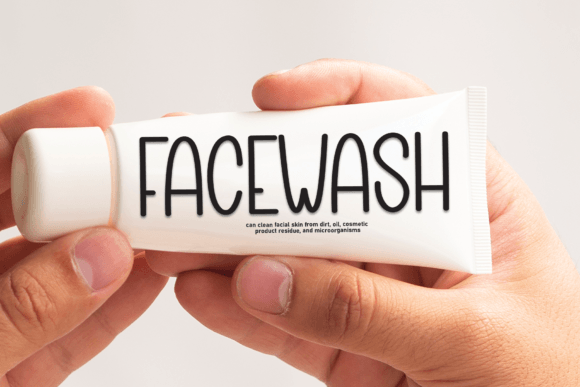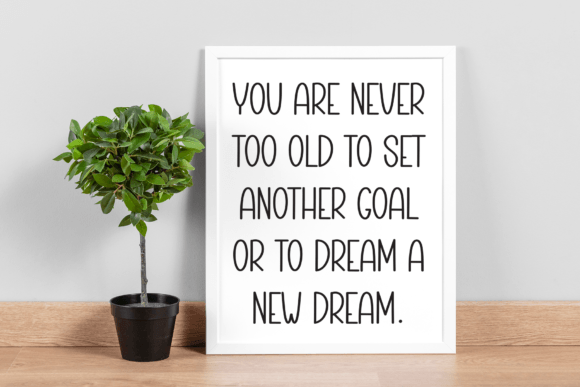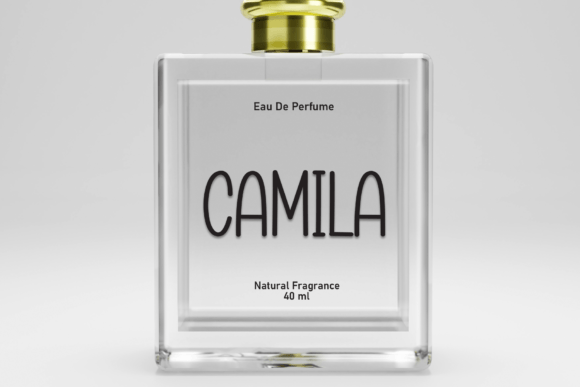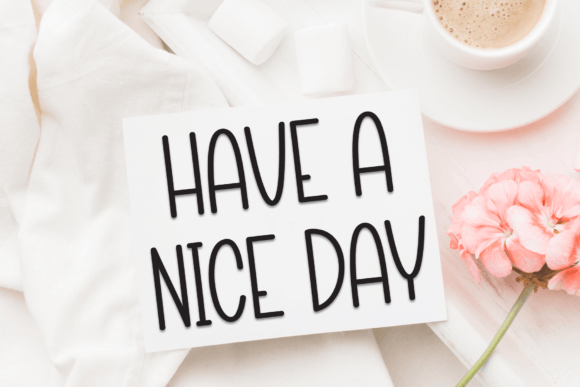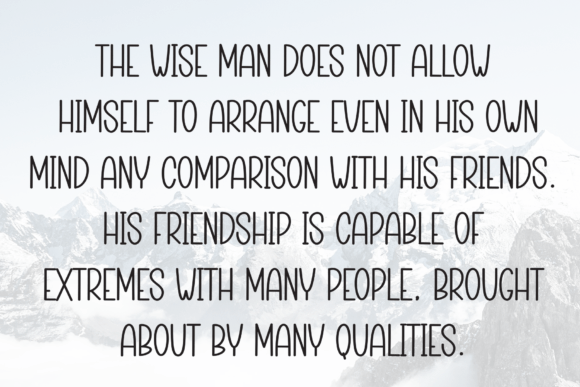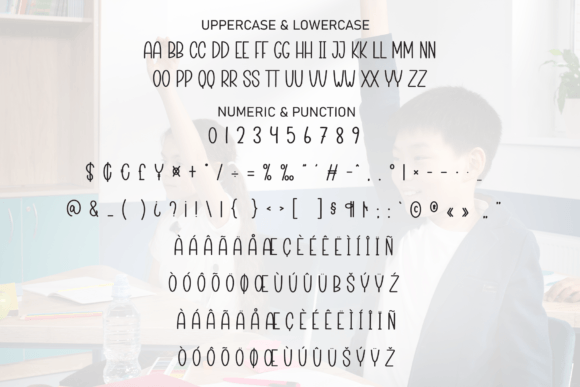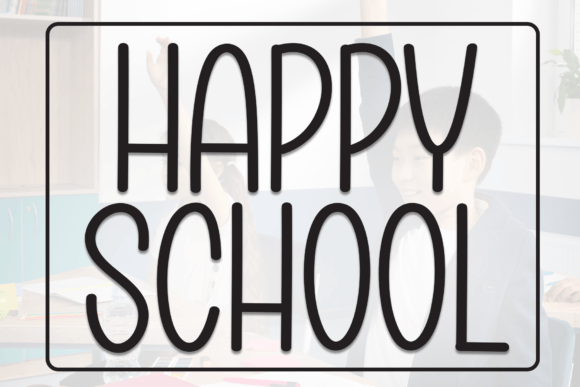
Introducing Happy School Font: The Perfect Choice for Fun and Creative Projects
Are you looking for a font that can add a touch of playfulness and friendliness to your text? Look no further than Happy School Font! This tall and cheerful display font is perfect for making your text stand out, whether you’re working on a kids’ project, creating a poster, or designing something fun and creative.
What Makes Happy School Font So Special?
Happy School Font is a unique and eye-catching font that is sure to capture the attention of your audience. Its playful and friendly style makes it perfect for a variety of projects, from educational materials to fun and creative crafts. The font’s tall and slender design gives it a sense of elegance and sophistication, while its cheerful and upbeat feel makes it perfect for adding a touch of whimsy to your text.
Perfect for Kids’ Projects and Educational Materials
Happy School Font is a great choice for kids’ projects and educational materials. Its playful and fun design makes it perfect for worksheets, activity sheets, and other educational resources. The font’s clear and easy-to-read design ensures that your text is easy to understand, making it perfect for kids of all ages.
Great for Posters and Other Fun Projects
But Happy School Font isn’t just limited to educational materials. Its fun and playful design makes it perfect for posters, flyers, and other fun projects. Whether you’re creating a poster for a school event or designing a flyer for a kids’ party, Happy School Font is the perfect choice.
Why Choose Happy School Font?
- Playful and Friendly Design: Happy School Font has a playful and friendly design that is sure to capture the attention of your audience.
- Clear and Easy-to-Read: The font’s clear and easy-to-read design ensures that your text is easy to understand.
- Perfect for Kids’ Projects: Happy School Font is a great choice for kids’ projects and educational materials.
- Great for Posters and Other Fun Projects: The font’s fun and playful design makes it perfect for posters, flyers, and other fun projects.
Tips and Tricks for Using Happy School Font
- Use it for Headings: Happy School Font is perfect for headings and titles. Use it to add a touch of playfulness and friendliness to your text.
- Pair it with Other Fonts: Happy School Font pairs well with other fonts, such as sans-serif fonts or script fonts. Experiment with different font combinations to find the perfect look for your project.
- Use it in Color: Happy School Font looks great in color! Experiment with different colors and gradients to add a touch of whimsy to your text.